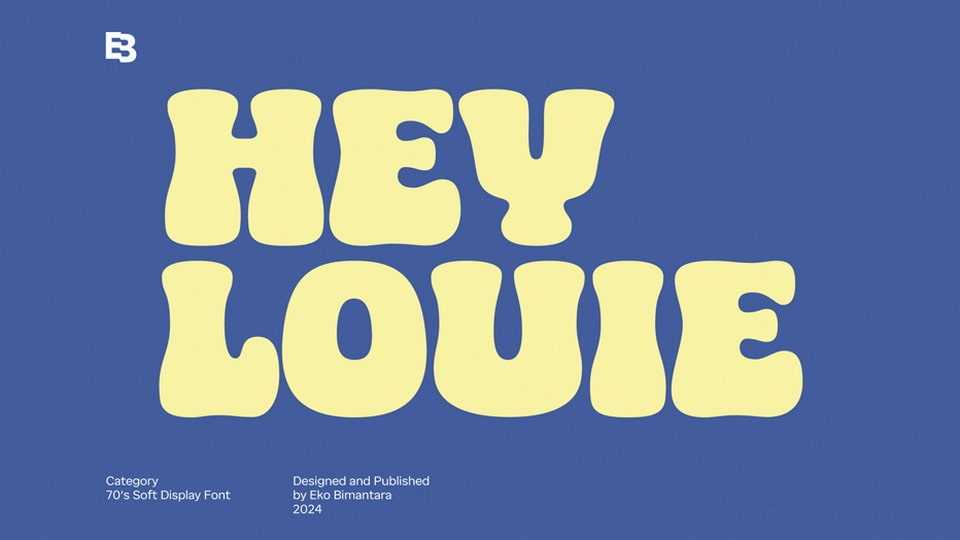
Download Hey Louie font, a playful and groovy bold display typeface that brings a vibrant, retro-inspired energy to your designs. Hey Louie font features dynamic letterforms with exaggerated curves, capturing the essence of 70s style.